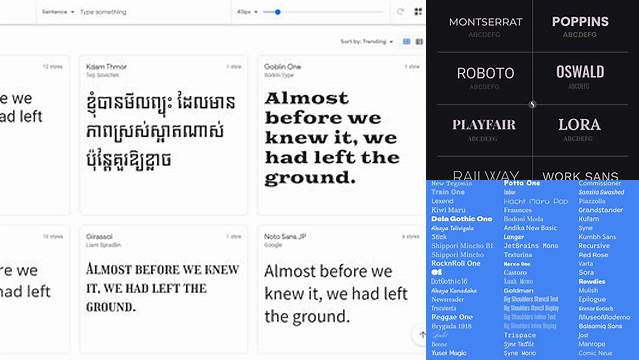
Cool Google Fonts To Use In 2026
Google Fonts is a fantastic resource for designers and developers, offering a vast library of free, open-source fonts that can be used in a wide variety of projects. As we look ahead to 2026, it's exciting to consider which fonts will be trending and how they'll be used to create compelling designs. In this article, we'll dive into some of the coolest Google Fonts that are likely to be popular in the coming years, exploring their unique characteristics and potential applications. We'll also discuss the broader trends in typography and design that are shaping the future of font usage. So, if you're looking to stay ahead of the curve and discover the best Google Fonts for your next project, you've come to the right place!
Exploring the Font Landscape in 2026
Before we delve into specific fonts, let's take a moment to consider the broader trends that are influencing the world of typography. In 2026, we can expect to see a continued emphasis on legibility and accessibility. With the increasing diversity of devices and screen sizes, it's crucial that fonts are easily readable across all platforms. This means that fonts with clear, well-defined letterforms and generous spacing will be highly valued. At the same time, there's also a growing appreciation for unique and expressive fonts that can help brands stand out and convey their personality. This has led to a resurgence of interest in display fonts, which are designed for headlines and other prominent text elements. Another key trend is the rise of variable fonts, which offer a high degree of flexibility and customization. Variable fonts allow designers to adjust various aspects of a font, such as weight, width, and slant, to create a wide range of styles from a single font file. This can significantly reduce file sizes and improve website performance, making variable fonts an attractive option for web design. Considering these trends, the fonts that will be considered cool in 2026 will likely strike a balance between functionality and aesthetics, offering both legibility and visual appeal. They may also leverage the capabilities of variable font technology to provide greater design flexibility. As we move forward, the key will be to select fonts that not only look good but also effectively communicate the intended message and enhance the user experience.
Top Font Families to Watch
Now, let's get into the specifics and explore some of the top font families that are poised to make a splash in 2026. One font family that's been steadily gaining popularity is Inter. Inter is a sans-serif font designed specifically for computer screens, making it an excellent choice for web and app design. Its clean, modern lines and generous x-height ensure readability at various sizes, and its extensive character set supports a wide range of languages. Another font family to watch is Readex Pro. This is a versatile sans-serif font that combines a contemporary feel with a touch of classic elegance. Its balanced proportions and subtle details make it suitable for both body text and headlines. Readex Pro is also available in a variable font format, offering a wide range of weights and styles to choose from. For those seeking a more playful and expressive font, Figtree is an excellent option. This sans-serif font has a friendly, approachable character, with slightly rounded terminals and a gentle rhythm. Figtree is particularly well-suited for branding and marketing materials, where it can help to create a warm and inviting impression. In addition to these sans-serif options, there are also several serif fonts that are worth considering. Playfair Display, for example, is a high-contrast serif font that exudes sophistication and elegance. Its delicate serifs and graceful curves make it ideal for headlines and other display purposes. Lora is another popular serif font that offers a more contemporary feel. Its slightly condensed letterforms and subtle calligraphic details give it a unique personality, making it a great choice for both body text and headlines. These are just a few of the many font families that are likely to be popular in 2026. As the design landscape continues to evolve, we can expect to see even more exciting and innovative fonts emerge.
The Rise of Variable Fonts
As mentioned earlier, variable fonts are a significant trend in the world of typography, and their popularity is only expected to grow in the coming years. Variable fonts offer a number of advantages over traditional static fonts. One of the key benefits is their flexibility. With a variable font, designers can adjust various aspects of the font, such as weight, width, and slant, to create a wide range of styles from a single font file. This eliminates the need to load multiple font files for different styles, which can significantly improve website performance. Another advantage of variable fonts is their customizability. Designers can fine-tune the font to perfectly match the needs of their project, creating a unique and personalized look. This level of control is simply not possible with static fonts. Variable fonts also offer improved file sizes. Because all the font styles are contained within a single file, variable fonts can be significantly smaller than a collection of static fonts. This can lead to faster loading times and a better user experience, particularly on mobile devices. Several Google Fonts are now available in variable font formats, including Inter, Readex Pro, and Montserrat. As more designers and developers embrace variable fonts, we can expect to see even more fonts added to this list. In 2026, variable fonts are likely to be a standard feature of web design, offering designers unprecedented control over typography. The ability to customize fonts to such a high degree will open up new possibilities for creative expression and help to create more engaging and visually appealing designs. This technology is a game-changer for the typography world, and its impact will only continue to grow.
Choosing the Right Fonts for Your Projects
Selecting the right fonts for your projects is crucial for creating effective and visually appealing designs. The fonts you choose can significantly impact the overall tone and message of your design, so it's important to make thoughtful decisions. One of the first things to consider is the purpose of your design. Are you creating a website, a brochure, a logo, or something else? The type of project will influence the fonts that are most appropriate. For example, a website may require fonts that are highly legible on screen, while a logo may benefit from a more distinctive and memorable font. Another important factor to consider is your target audience. Who are you trying to reach with your design? The fonts you choose should resonate with your target audience and help to convey the intended message. For example, a design aimed at a younger audience may use more playful and contemporary fonts, while a design aimed at a more mature audience may opt for more classic and sophisticated fonts. It's also important to consider the overall style and tone of your brand or project. The fonts you choose should align with your brand's personality and values. If your brand is modern and innovative, you may want to use sans-serif fonts with clean lines and a minimalist aesthetic. If your brand is more traditional and established, you may prefer serif fonts with a more classic and elegant look. In addition to these considerations, it's also important to test your font choices in different contexts. Make sure that the fonts are legible at various sizes and on different devices. It's also a good idea to get feedback from others to see how they perceive your font choices. By carefully considering these factors, you can choose fonts that will enhance your designs and help you achieve your goals. Remember, the right fonts can make a big difference in the overall success of your project, so it's worth taking the time to make informed decisions.
Font Pairing Tips
One of the trickiest aspects of typography is pairing fonts effectively. Combining different fonts can create visual interest and hierarchy, but it can also be challenging to get it right. Here are a few tips to help you master the art of font pairing: Start by choosing a dominant font. This will be the primary font used for headlines and other important text elements. Once you've chosen a dominant font, you can select a secondary font to complement it. A good rule of thumb is to choose fonts with contrasting styles. For example, you might pair a serif font with a sans-serif font, or a bold font with a lighter font. This creates visual interest and helps to differentiate between different text elements. However, it's also important to ensure that the fonts have a cohesive feel. They should share some common characteristics, such as similar proportions or stroke weights. This will help to create a harmonious and balanced design. Another tip is to limit the number of fonts you use. In most cases, it's best to stick to two or three fonts at most. Using too many fonts can make your design feel cluttered and confusing. It's also important to consider the context in which the fonts will be used. Different font pairings may be appropriate for different types of projects. For example, a website may require a more minimalist and functional font pairing, while a poster may benefit from a more expressive and creative pairing. Finally, don't be afraid to experiment. Font pairing is a skill that takes practice to master. Try out different combinations and see what works best for your projects. There are also many online resources and tools that can help you with font pairing, such as font pairing generators and typography blogs. By following these tips, you can create effective and visually appealing font pairings that will enhance your designs. Remember, the goal is to choose fonts that work well together and help to communicate your message clearly and effectively. Good font pairing is an art form, and with a little practice, you can become a master of it.
The Future of Google Fonts
Looking ahead to 2026 and beyond, the future of Google Fonts looks bright. Google Fonts has become an indispensable resource for designers and developers, and its impact on the design landscape is undeniable. As technology continues to evolve, we can expect Google Fonts to adapt and innovate to meet the changing needs of the design community. One area where we may see significant developments is in the realm of artificial intelligence. AI could be used to enhance the font discovery process, helping users to find the perfect fonts for their projects more quickly and easily. AI could also be used to generate new fonts automatically, opening up exciting possibilities for creative expression. Another trend to watch is the growing emphasis on accessibility. Google Fonts is already committed to providing fonts that are accessible to users with disabilities, and we can expect this commitment to deepen in the coming years. This may involve developing new fonts that are specifically designed for users with visual impairments, as well as improving the accessibility features of existing fonts. The integration of Google Fonts with other design tools is another area where we may see progress. Seamless integration with popular design software would make it even easier for designers to incorporate Google Fonts into their workflows. This could involve developing plugins or extensions that allow users to browse and select Google Fonts directly from within their design applications. Overall, the future of Google Fonts is full of potential. As the design landscape continues to evolve, Google Fonts will undoubtedly play a key role in shaping the way we create and communicate visually. By embracing new technologies and prioritizing accessibility, Google Fonts can continue to empower designers and developers around the world. Keep an eye on the evolution, guys! It's gonna be awesome!
Staying Up-to-Date with Font Trends
In the ever-evolving world of design, it's essential to stay up-to-date with the latest font trends. What's considered cool and stylish today may be outdated tomorrow, so it's important to continuously learn and adapt. One of the best ways to stay informed is to follow design blogs and publications. There are many excellent online resources that cover typography and design trends, such as Typewolf, Creative Bloq, and AIGA Eye on Design. These publications often feature articles and interviews with leading designers, providing valuable insights into the latest trends and best practices. Another great way to stay up-to-date is to attend design conferences and workshops. These events offer opportunities to learn from experts, network with other designers, and see the latest fonts and design tools in action. Attending conferences can be a great way to get inspired and discover new ideas. Social media can also be a valuable resource for staying informed. Follow designers and design agencies on platforms like Instagram, Dribbble, and Behance to see their latest work and get a sense of current trends. Social media can be a great way to discover new fonts and design styles. Experimenting with different fonts is also crucial for staying current. Don't be afraid to try out new font pairings and explore different styles. The more you experiment, the better you'll become at understanding what works well and what doesn't. Finally, it's important to develop your own personal style. While it's important to stay informed about trends, it's also crucial to develop your own unique aesthetic. This will help you to stand out from the crowd and create designs that are truly memorable. By following these tips, you can stay up-to-date with font trends and ensure that your designs are always fresh and relevant. Remember, typography is a constantly evolving field, so it's important to be a lifelong learner. Keep exploring, keep experimenting, and keep creating!